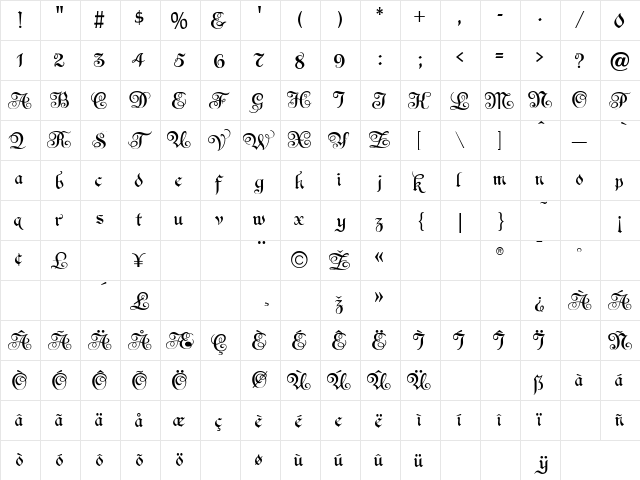
Espania Normal
Design Context for Espania Typeface
Espania is a composed and adaptable typeface that performs quietly and consistently across a wide range of design contexts.